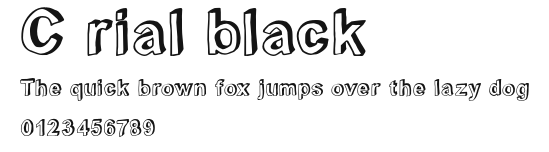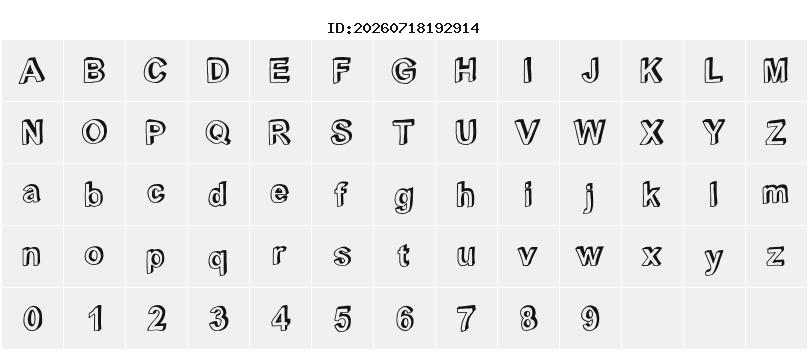
C rial black Preview
• Font Name: C rial black
• Designer: J O E B O B graphics
• Manufacturer: J O E B O B graphics
About C rial black.otf
C rial black.otf is a modern, elegant sans-serif font designed for ultimate readability and visual harmony. Perfect for branding, headlines, web design, and print materials.